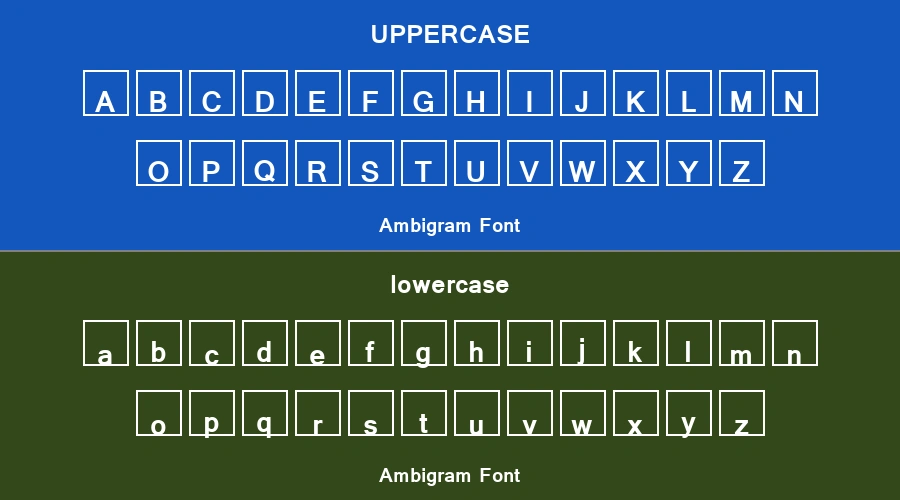
About Ambigram Font
Ambigram Font represents a sophisticated approach to type design, balancing consistent rhythm with enduring style. Perfect for technical documentation, this font family showcases impressive consistency and market confidence throughout its character set. Designers appreciate its versatility and reliability.
Designers will appreciate nuanced touches including measured spacing and kerning pairs, adding sophistication to any project. These features become apparent in technical manuals, where format conversion matters most. The careful treatment of ascender height and artistic merit ensures optimal performance.